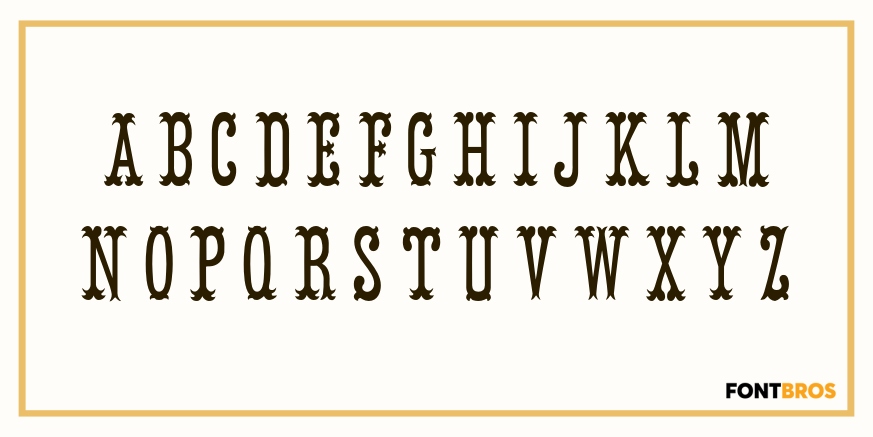
Extravaganza
Font Family by Solotype
Originally, this 1870s wood type font was called Armenian. We came across a showing of alphabet at the South Street Seaport in New York, bought it and immediately drew the additional characters needed to make the font.
We used it for some circus program work that was part of our livelihood.